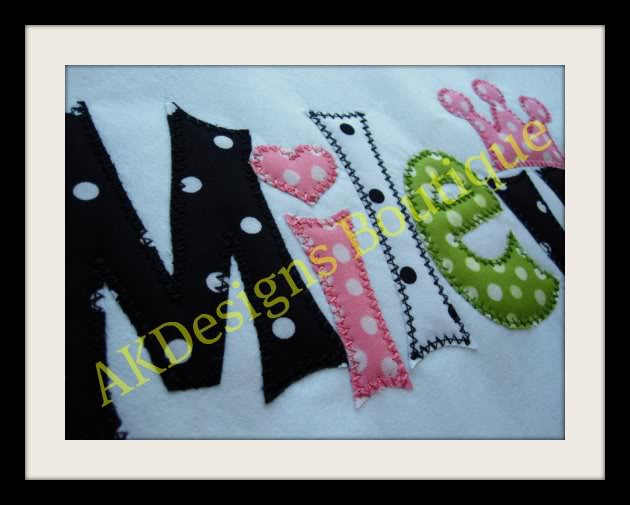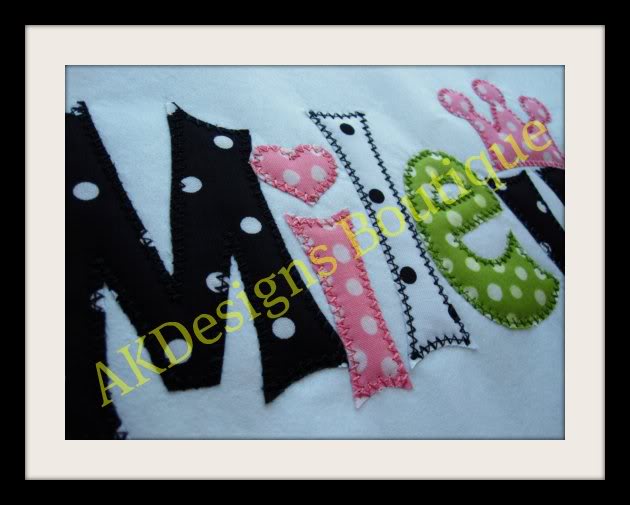
No 1357 Applique Princess Font Machine Embroidery Designs 5.5 inch high
AKD Exclusive
This set contains 77 individual designs:
• 26 Zig Zag Stitch Applique Uppercase Letters – 5.5" high
• 26 Zig Zag Stitch Applique Lowercase Letters
• 10 Zig Zag Stitch Applique Numbers
• 3 Zig Zag Stitch Applique Crowns
• 3 Zig Zag Stitch Applique Hearts
• 9 Alternate Zig Zag Stitch Applique letters with hearts [a, b, d, g, i, j, o, p and q]
Designed to combine and spell names
This font will look very cute stitched for a boy too ~ just don’t add the hearts & crowns!